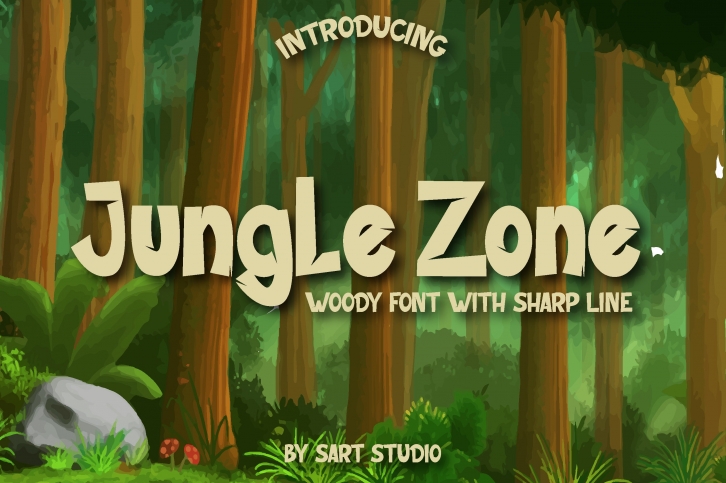
Jungle Zone is a trendy and unique font with an authentic style. It was designed by Sartstudioofficial and it's a great choice for creative people who need such a font. It was released on July 1, 2020 and the file size is 20.90 MB. Jungle Zone will add an organic vibe to any design idea!